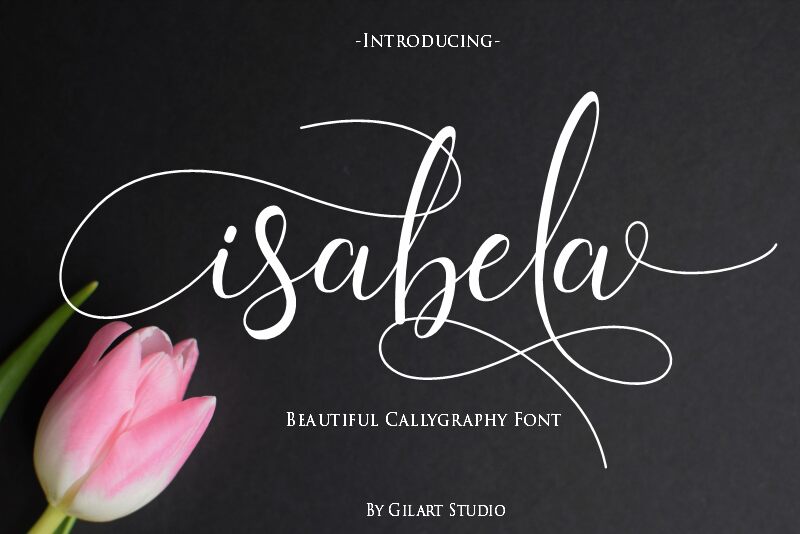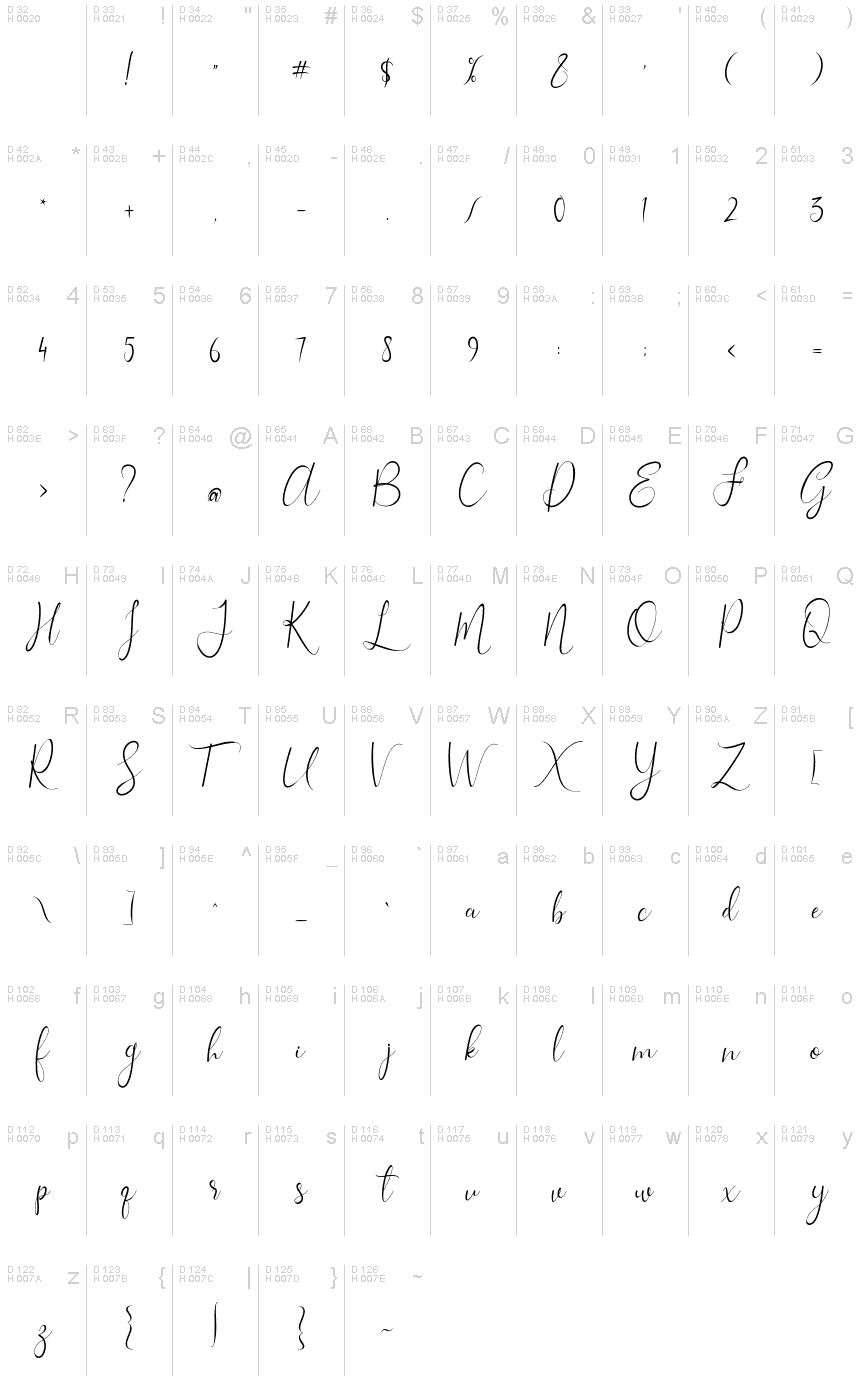
isabela
Introducing the romantic calligraphy font, "isabela" ! isabela this font Is perfect for logo, invitation, stationery, wedding designs, social media posts, advertisements, product packaging, product designs, label, photography, watermark, special events or anything.
"isabela" includes full set of gorgeous uppercase and lowercase letters, multilingual support, punctuation, ligatures, alternates, and stylisticset from ss01 to ss05 gorgeous extras from a to z and beginning and ending numerals swashes. everything can be easily accessed using software that supports OpenType. Like Adobe Indesign, Adobe Illustrator CS, Adobe Photoshop CC, and Corel Draw.